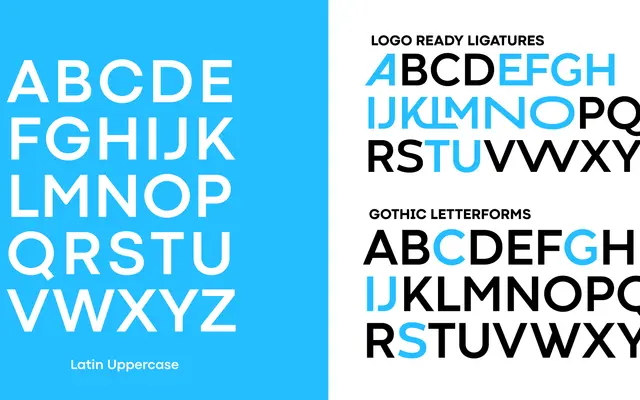
Codec Pro ME
Zetafonts · Cosimo Lorenzo Pancini, Francesco Canovaro, Andrea Tartarelli, Oded Ezer, Omaima Dajani · 2024
A Middle Eastern extension of Codec Pro covering Arabic and Hebrew scripts across eleven weights, developed with specialist collaborators Oded Ezer and Omaima Dajani.
Built on the geometric sans foundation of Codec Pro, first drawn in 2017 by Cosimo Lorenzo Pancini and Francesco Canovaro, this extension adds Arabic and Hebrew coverage across 1718 glyphs and 217 languages. The Hebrew was designed by Oded Ezer and the Arabic developed in consultation with Omaima Dajani, with the team drawing on advice from Pascal Zoghbi of 29LT to avoid imposing Latin structural logic onto non-Latin scripts. Eleven weights from Thin to Fat are available as static fonts and as a variable weight axis.
Codec Pro ME is a geometric sans-serif extending the 2017 Codec Pro design with Arabic and Hebrew scripts; its construction follows the modernist geometric tradition adapted carefully for non-Latin writing systems.